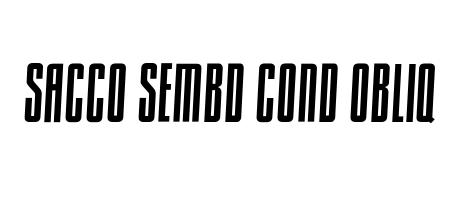
Sacco
By Blueroom Collective
Sacco SemBd Cond Obliq is a bold, condensed, and italicized typeface. Its strong, slightly compressed characters lean dramatically to the right, giving it a dynamic and energetic feel. The weight is substantial, projecting confidence and a sense of movement. Its condensed nature maximizes readability even in smaller sizes. Overall, it's a highly stylized and assertive font.